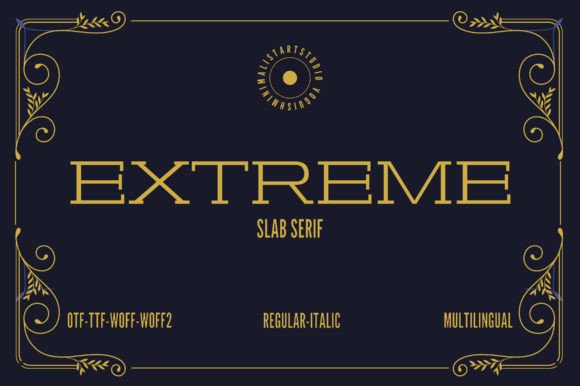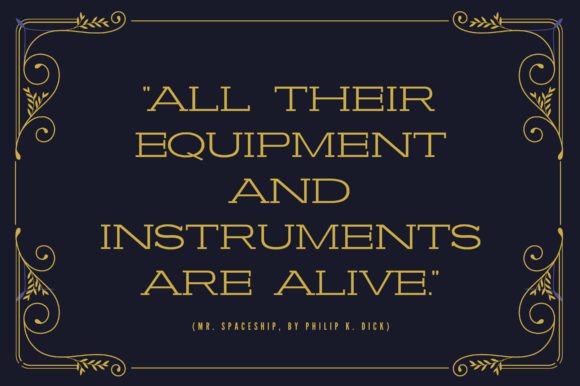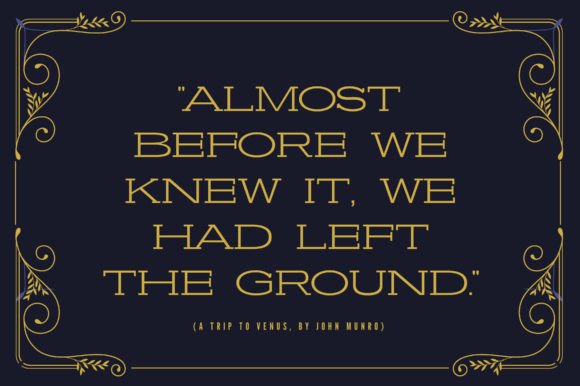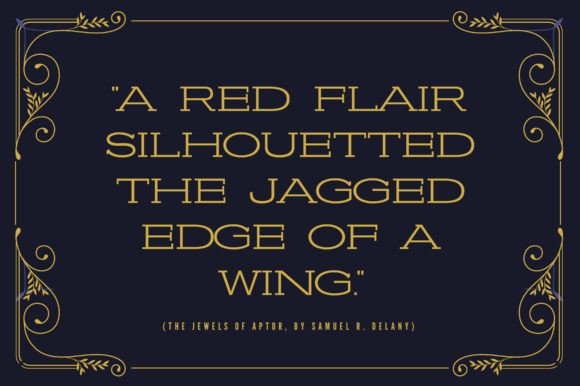
About Extreme Font
Extreme is an extremely elegant typeface designed for obtaining the maximum luxurious aspect that a slab serif typeface can provide through the careful construction of delicate glyphs. It can be wonderfully used for packaging design, fashion design-related themes, fragrance design, cosmetics design, social posts, etc. Use it confidently in your creation, and you will notice the awesome results that can be easily obtained.